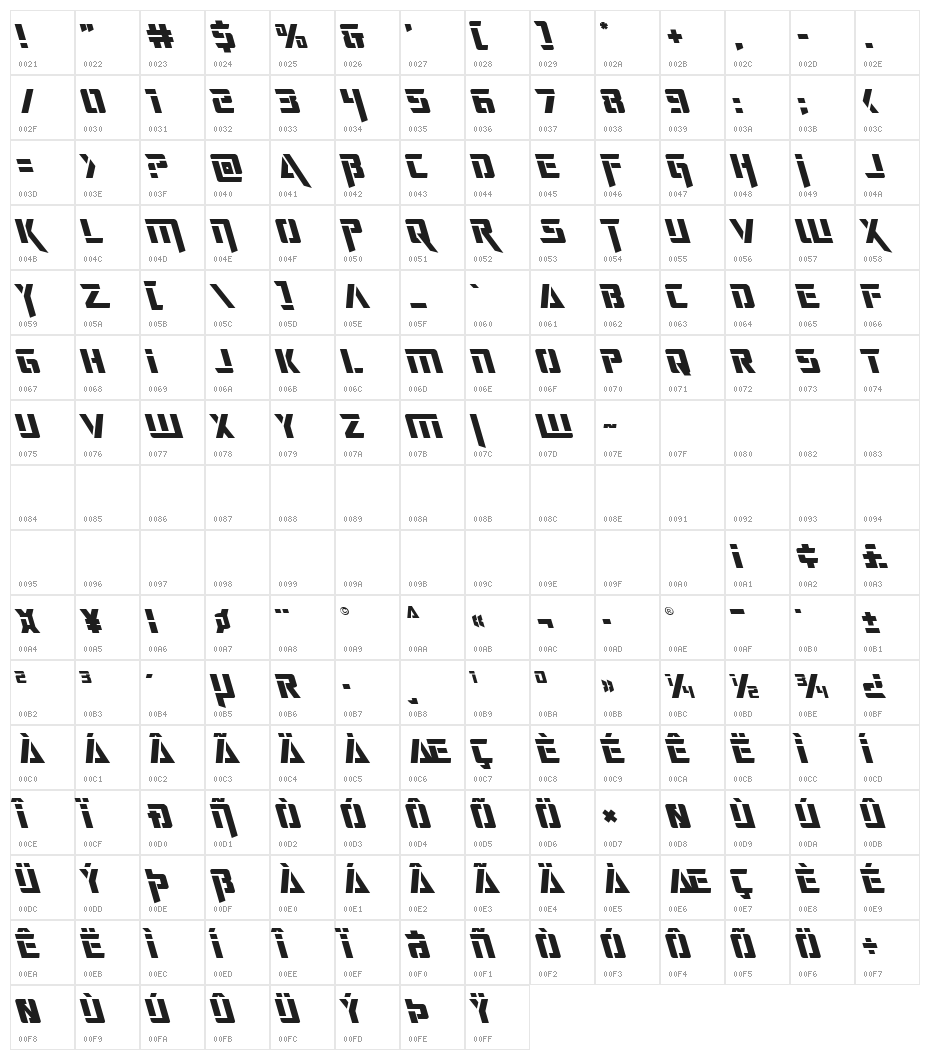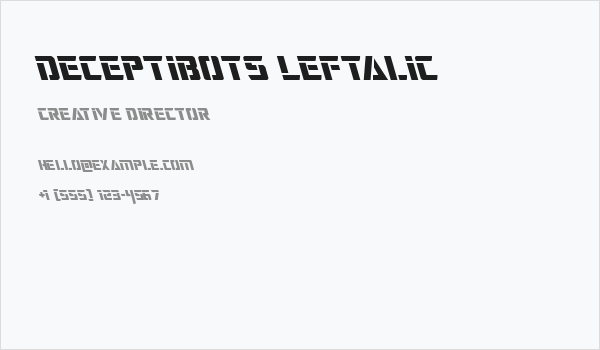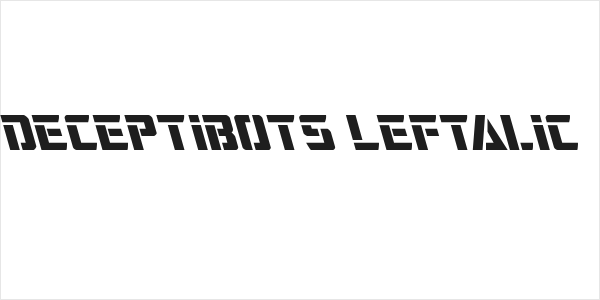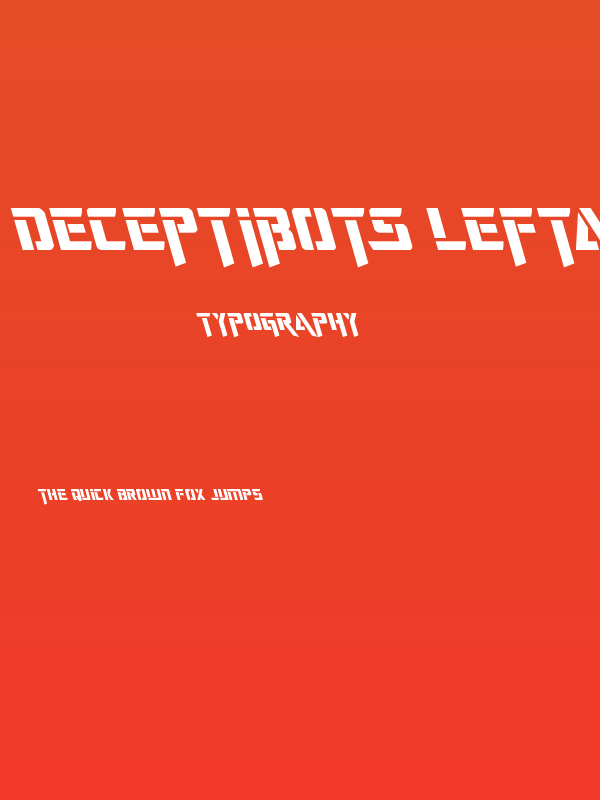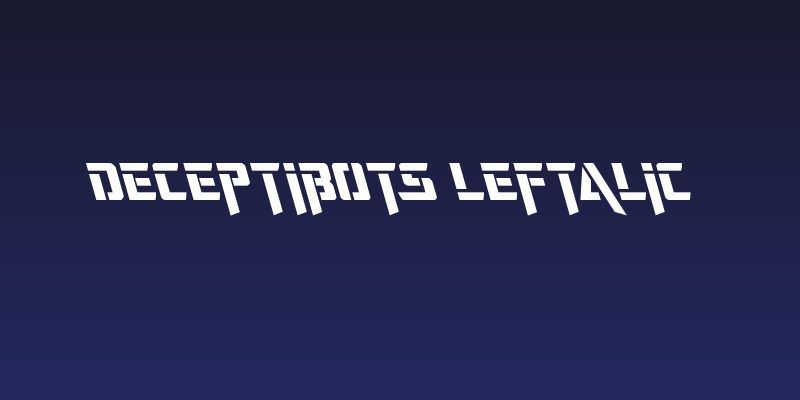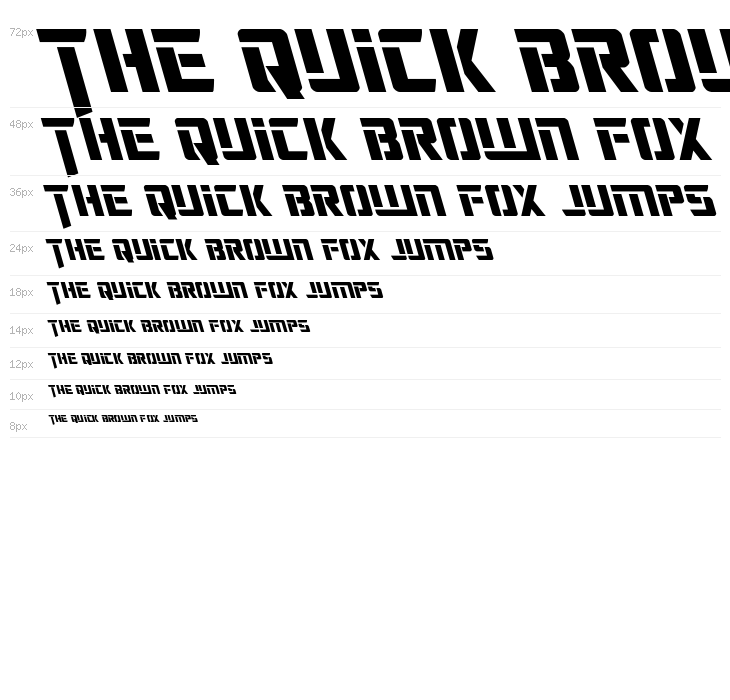
Deceptibots Leftalic Font
Deceptibots Leftalic Description
This font features a bold, angular design with a futuristic and mechanical aesthetic. The characters are sharply cut with a distinct slant, giving them a dynamic and aggressive appearance. The uppercase and lowercase letters maintain a consistent style, with strong geometric shapes and a uniform thickness throughout. The numerals and special characters follow the same design principles, ensuring a cohesive look across all glyphs. This font is highly stylized, making it ideal for projects that require a strong, impactful visual presence.
| Proposed Projects | Ideal for sci-fi themed designs, video game titles, movie posters, and branding for tech companies. |